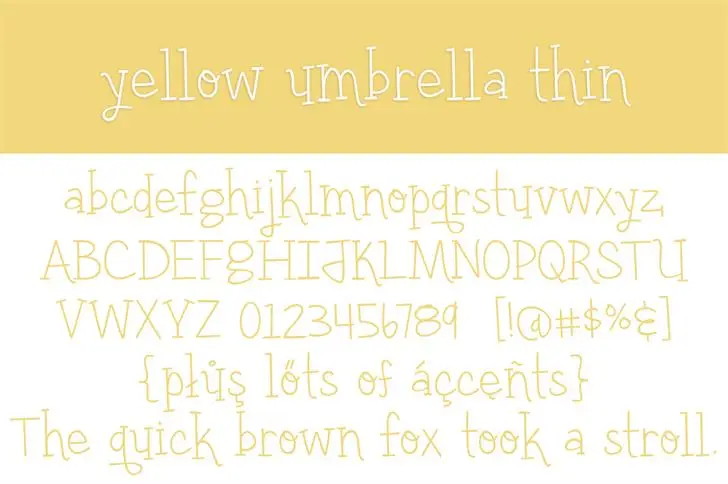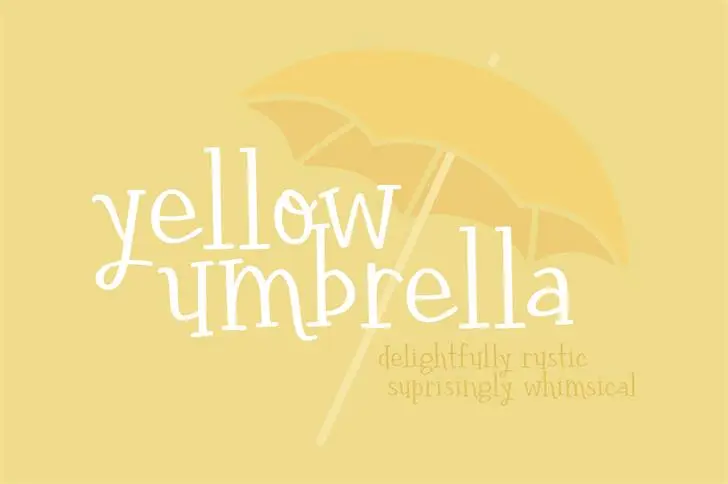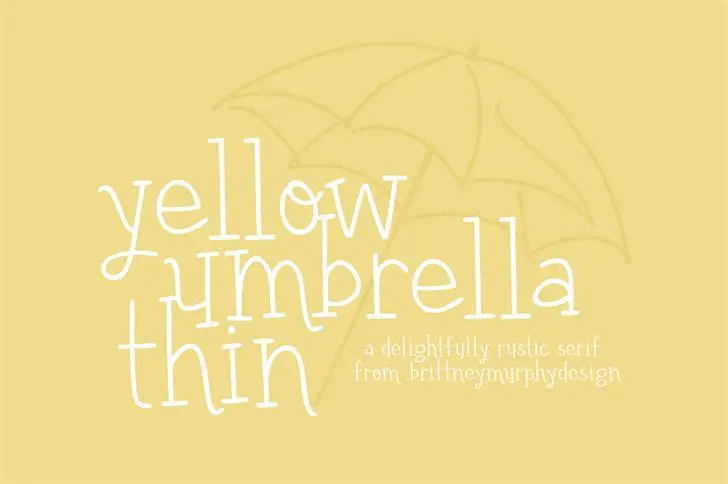
The Yellow Umbrella Font is a charming and playful typeface that adds a touch of whimsy to any design project. With its unique character shapes and smooth curves, this font is perfect for a variety of applications, including branding, logos, web design, and print materials.
- Stylish and modern design
- Uppercase and lowercase letters
- Numerals and punctuation included
- Weights: Regular, Bold
- Ideal for creating eye-catching headlines and invitations
- Use in web design for a friendly and approachable feel
- Combine with simple sans-serif fonts for contrast
Yellow Umbrella Font